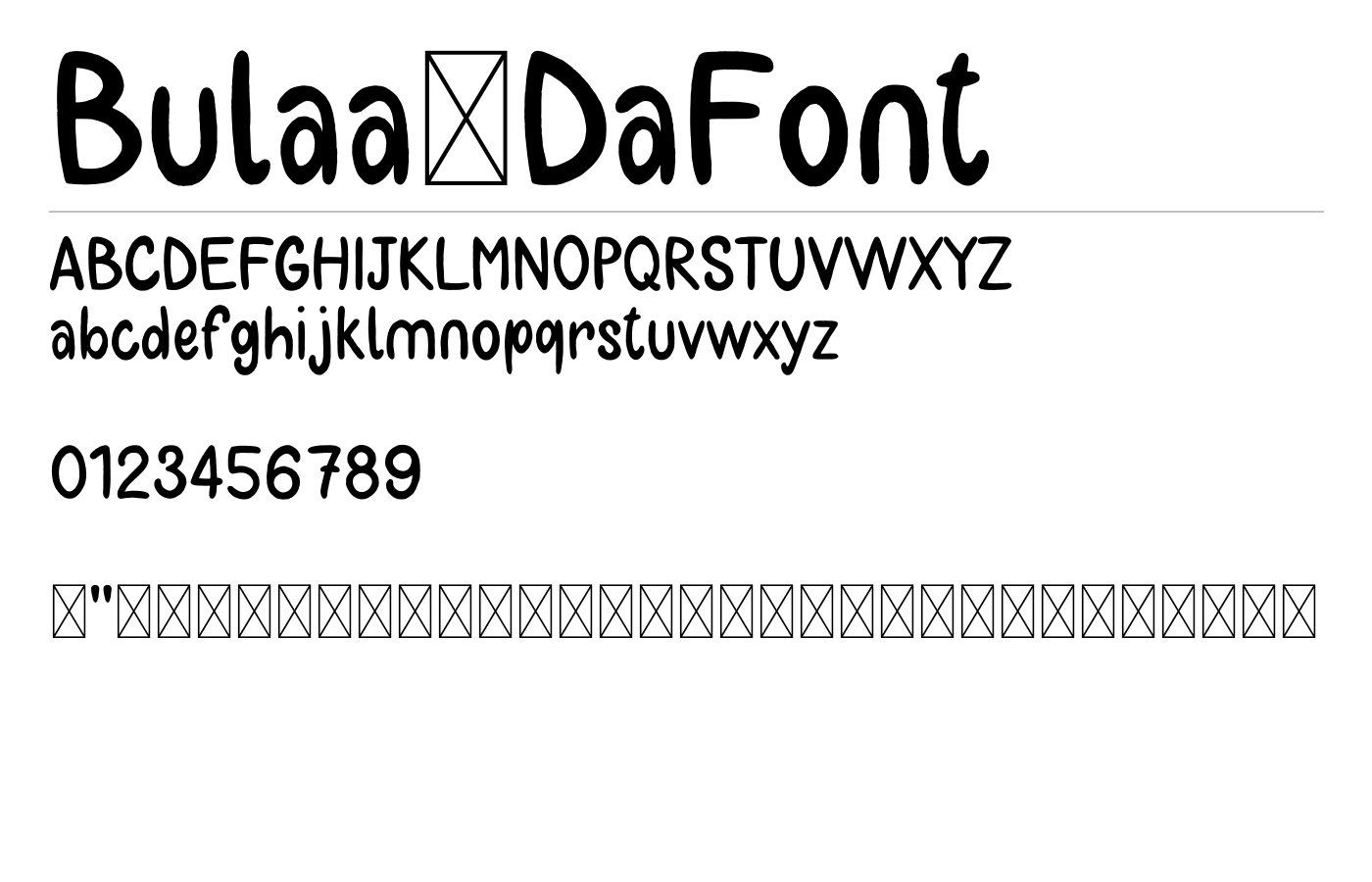
Bulaa-DaFont is a casual, hand-drawn sans serif font with a playful and friendly character. Its irregular strokes, moderate weight, and rounded shapes give it a warm, approachable feel, making it ideal for informal designs like children's books, personal projects, and creative branding. This font works well for headlines and short text where a lively, human touch is desired.
Bulaa-DaFont
About Bulaa-DaFont